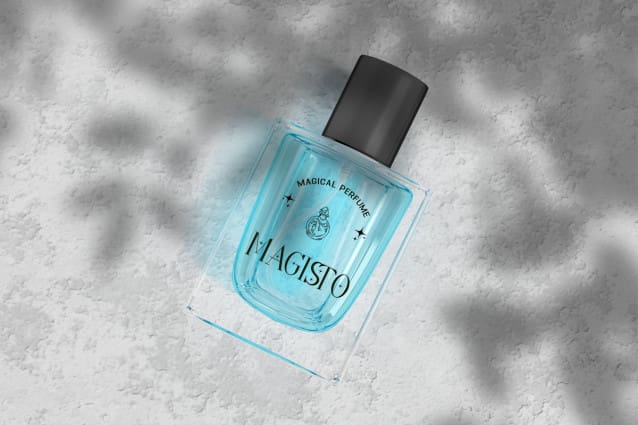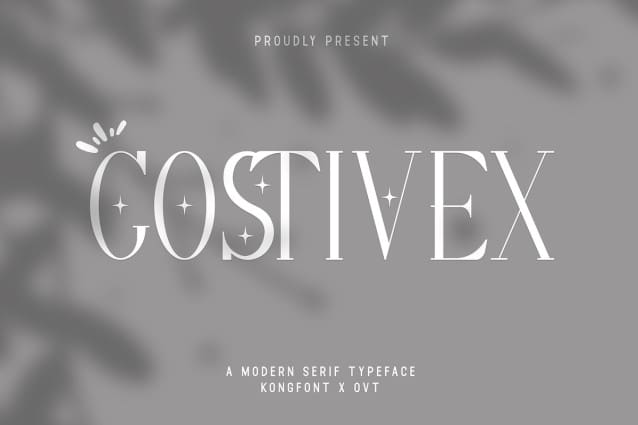
Costivex Font
Costivex Font, a modern serif typeface that embodies timeless elegance and contemporary versatility. With its sleek lines and refined curves, Costivex Font adds a touch of sophistication to any design project, from editorial layouts to branding materials.
Crafted with meticulous attention to detail, Costivex strikes the perfect balance between classic serifs and modern aesthetics. Whether you’re designing for print or digital media, this font offers clarity, readability, and visual appeal.
With a range of weights and styles to choose from, Costivex provides flexibility and adaptability for diverse design needs. Its extensive character set includes alternates, ligatures, and swashes, allowing you to customize your typography with ease and precision.
Elevate your designs to new heights with the timeless beauty and versatility of Costivex, where modern sophistication meets classic charm.